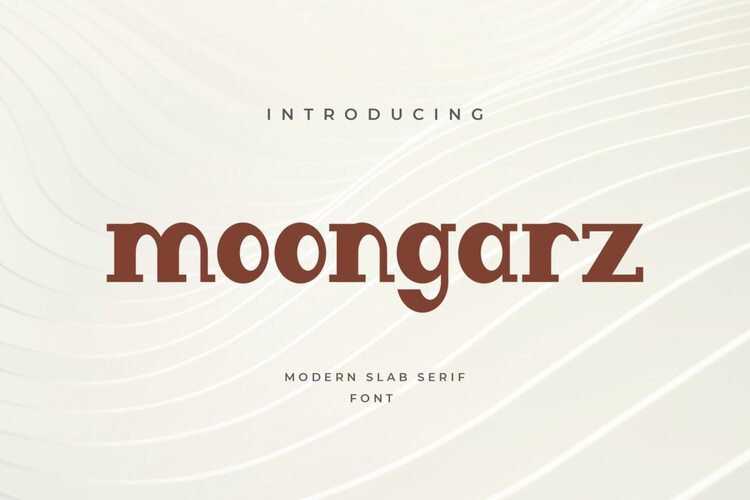
Moongraz Thick Funky Font
This retro slab serif block logo font is free for Personal Use Only. Commercial license required for POD, tattoos, logos, publications, webfonts, ads, games, apps and broadcasts.